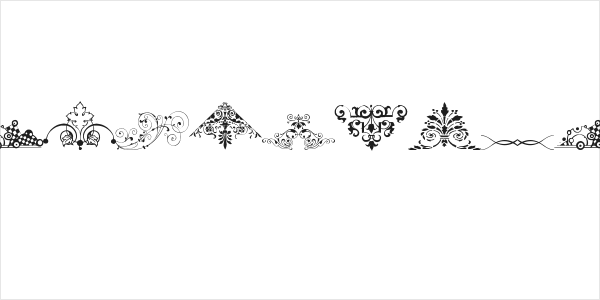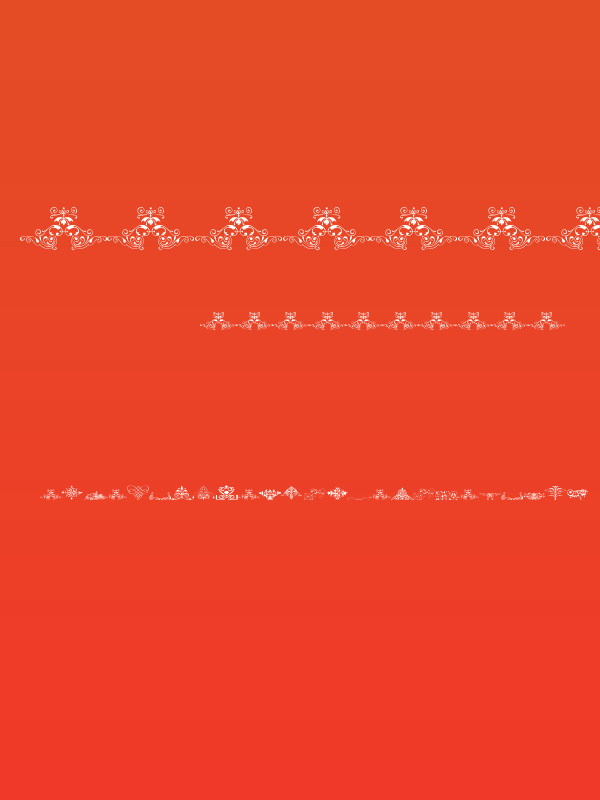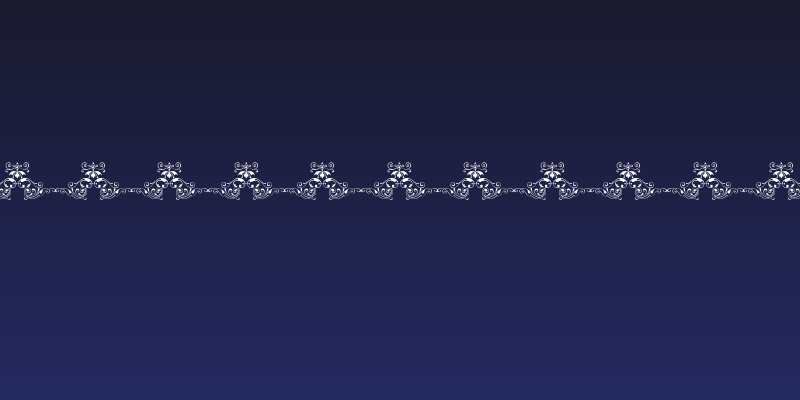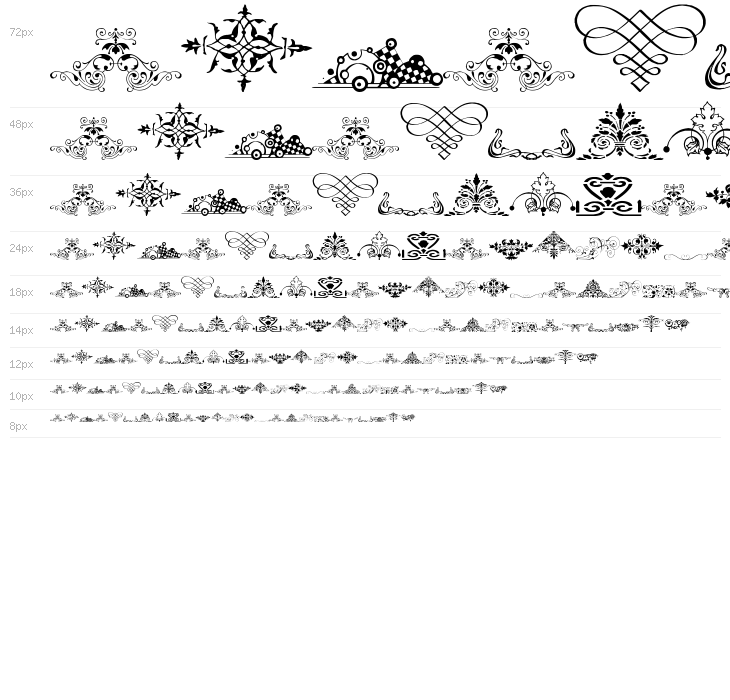
Vintage Decorative Signs 18 Font
Vintage Decorative Signs 18 Description
Highly ornamental and intricate decorative elements featuring symmetrical flourishes, swirls, and vintage motifs, reminiscent of classic signage and Victorian embellishments. The designs are composed of complex line work and floral patterns, intended for use as borders, dividers, or embellishments rather than traditional alphanumeric characters.
| Overall Style | Vintage, Decorative |
| Use Case | Borders, Dividers, Decorative accents |
| Proposed Projects | Wedding invitations, certificates, vintage posters, signage, decorative borders, event programs, packaging. |